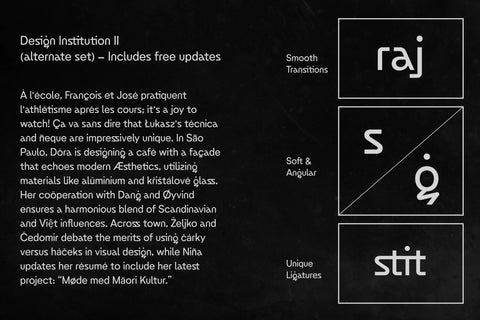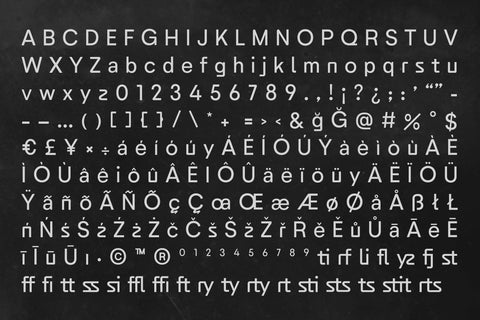
Design Institution Geometric Sans Font with ligatures
Design Institution - a Geometric Sans Font
Meet Design Institution, the latest font from Want Studio.
It's the Y-3 of typefaces—masterfully fusing a techno-sports aesthetic with classic style, much like Yohji Yamamoto's iconic designs.
Built for the modern creative, Design Institution boasts smooth transitions, soft yet angular contours, and unique ligatures. This dynamic, bold, and distinctly innovative font is perfectly suited for designers who dare to make a standout impression in the ever-evolving world of design.
Design Institution is more than a geometric sans serif; it’s a statement of artistic intent, offering clean lines combined with unique ligatures that elevate design projects from ordinary to extraordinary.
Font Features:
• Single Weight Design: Perfectly balanced for sleek, uniform typesetting that works seamlessly across all media.
• Precision Meets Innovation: This font integrates geometric accuracy with creative character modifications for a fresh look.
• Distinctive Ligatures: Innovative joins that transform standard typography into captivating design statements.
• Alternate Characters - Your Creative Allies: Broaden your design horizons with a suite of options that allows for full expression in your branding and artistic projects.
The Design Institution Font is ideal for designers who strive to make each project not just seen but impactful.
Demand a touch of sophistication alongside cutting-edge visual impact with Design Institution Font